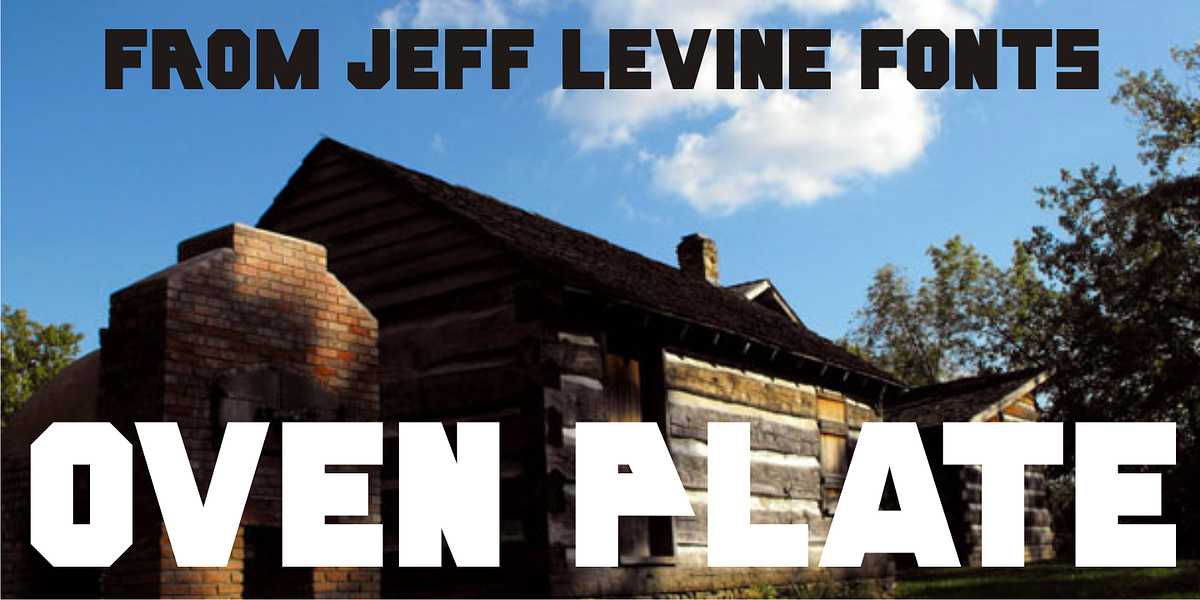
Oven Plate JNL
Oven Plate JNL solidifies the outline lettering of Stove Plate JNL; based on the logo for Red Star Oil Stoves and found on an old letterpress cut.